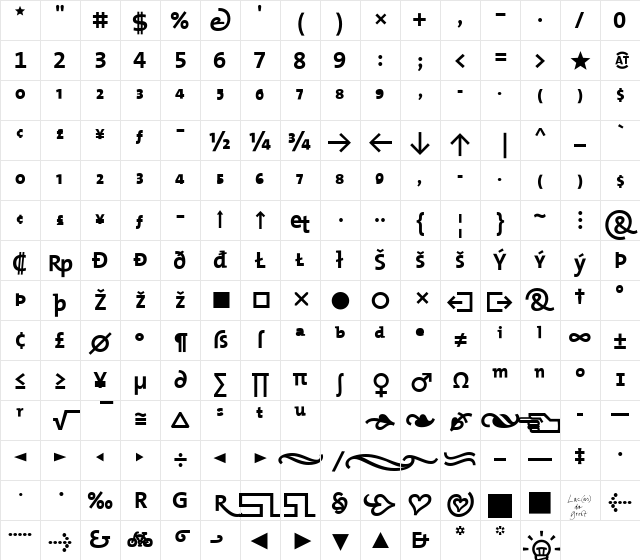
TheMixExpert Bold
TheMixExpert Bold Family
Design Context for TheMixExpert
TheMixExpert is a composed and adaptable typeface that performs quietly and consistently across a wide range of design contexts. Its bold stroke weight gives it real presence on the page.